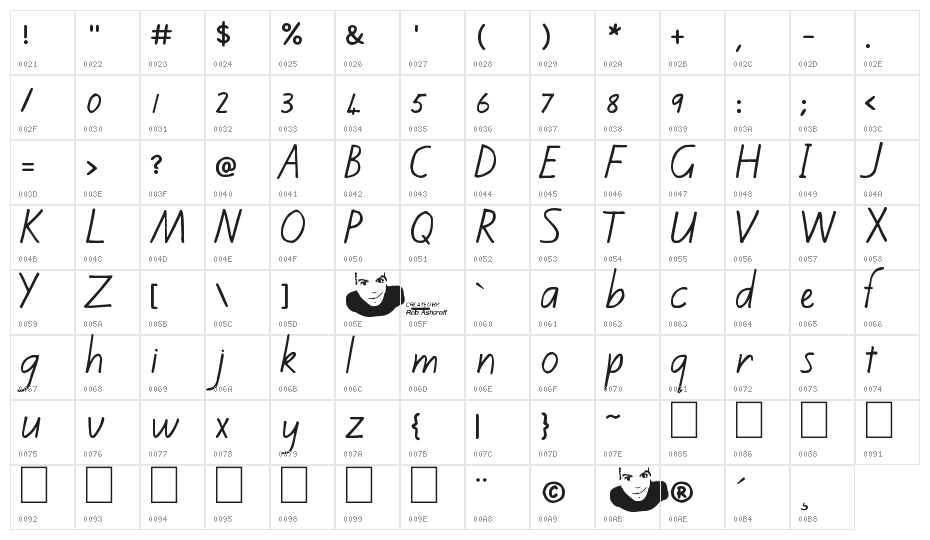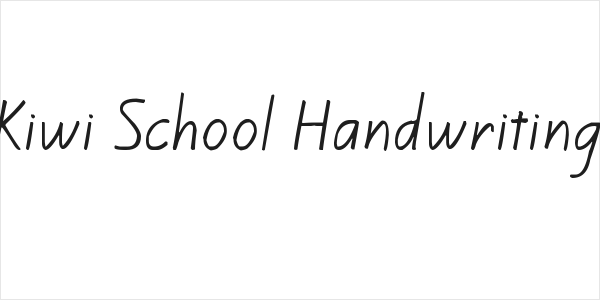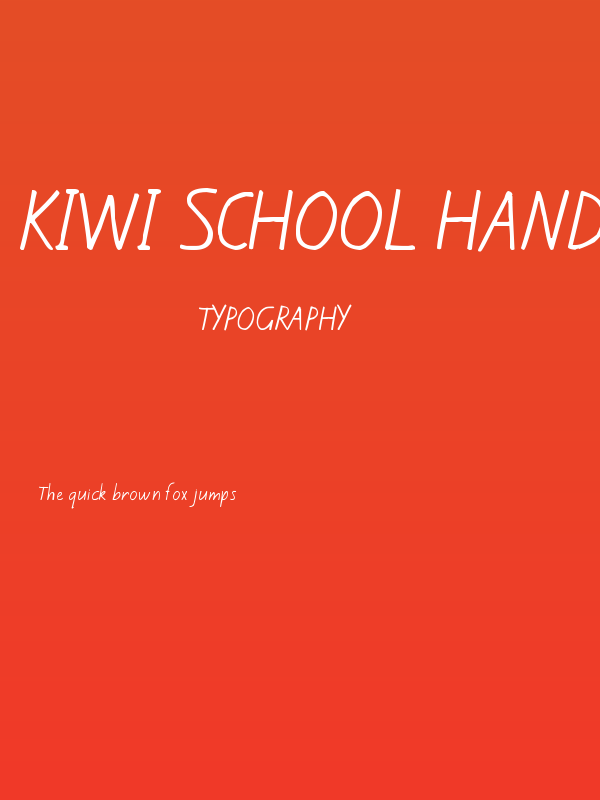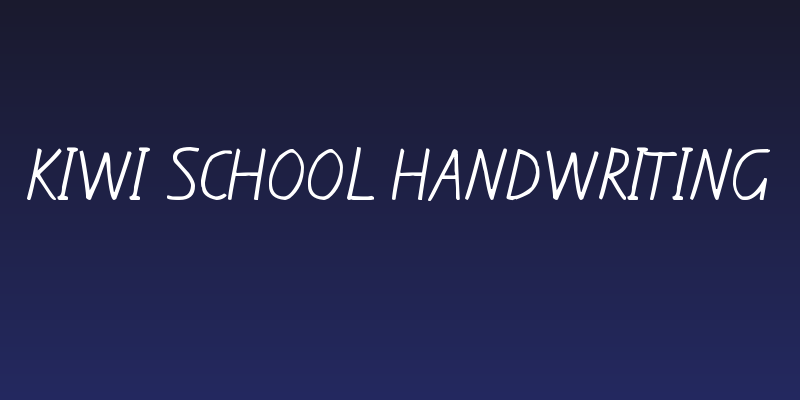
Kiwi School Handwriting Font
Kiwi School Handwriting Description
This font exudes a casual and approachable style, reminiscent of traditional handwriting taught in schools. The characters are slightly slanted, giving it a dynamic and fluid appearance. Each letter is crafted with a consistent stroke width, maintaining a uniform look across both uppercase and lowercase letters. The numerals and special characters follow the same handwritten aesthetic, ensuring a cohesive design throughout. The overall impression is one of simplicity and clarity, making it ideal for educational materials or any project requiring a personal touch.
| Use Case | Educational materials, informal text, personal notes. |
| Proposed Projects | Ideal for educational materials, children's books, personal notes, and informal invitations. |